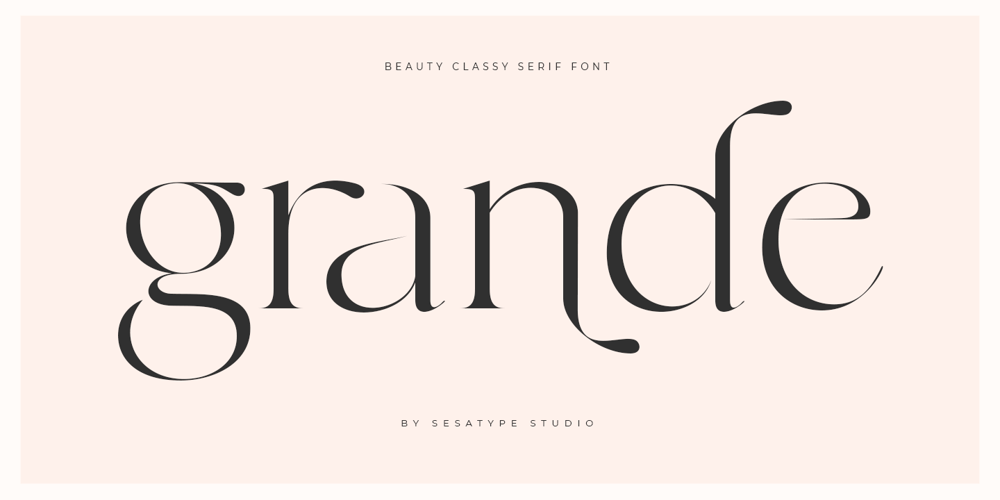
Grande SS Font Family was designed by Zamroni Hamzah and published by Sensatype Studio. Grande SS contains 1 styles and family package options. grande font is a collections of a modern, feminine, beauty and classy characters, give you unique looks for any branding or logo design needs. grande font is mix of beauty and classy feels, which has a wide range of uses but was mainly intended for logos, perfumes, fashion magazines, invitations, or book covers. Not only you’ll find many decorative characters, but also amount of unique alternate characters will make you really adore this font.grande is also included full set of: uppercase and lowercase letters alternates and ligatures multilingual characters numerals punctuations Wish you enjoy our font and if you have a question, don’t hesitate to drop message & I’m happy to help 🙂